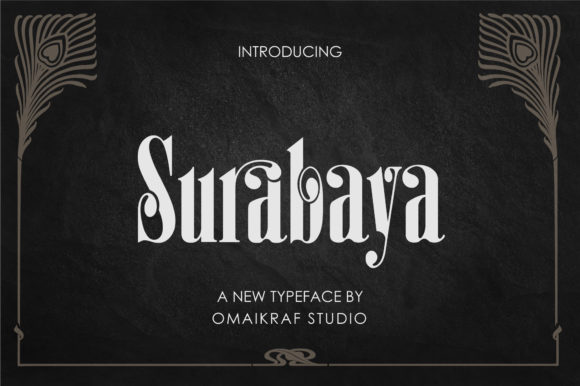
Unleash the boundless potential of Surabaya Font, the breathtaking display font crafted by the visionary omaikraf. Immerse yourself in a world of typographic elegance where creativity flourishes and imagination takes flight. Surabaya Font isn't just a font; it's an artistic masterpiece that transforms your designs into captivating visual expressions.
With its meticulously crafted curves and striking presence, Surabaya Font commands attention effortlessly. Each letterform is a work of art, meticulously designed to evoke emotions and convey messages with unparalleled clarity and sophistication. Whether you're crafting logos, branding materials, or captivating social media graphics, Surabaya Font is the ultimate tool to make an unforgettable impact.
Step into a realm of limitless possibilities with Surabaya Font and watch as your creative visions come to life. Its versatility extends far beyond the confines of traditional design, inviting you to explore new horizons of artistic expression. Dive into the world of app design, web development, or even Android Studio projects, knowing that Surabaya Font will elevate every element with its undeniable charm.
As a font meticulously designed for Android Studio, Surabaya Font is your gateway to creating apps that captivate and engage users from the very first glance. Its crisp, clean lines render beautifully on digital screens, ensuring that your app's interface exudes professionalism and sophistication. From user interfaces to marketing materials, Surabaya Font empowers you to craft a cohesive and visually stunning app experience that leaves a lasting impression.
Surabaya Font is more than just a collection of letters; it's an invitation to embark on a creative journey where boundaries dissolve, and imagination reigns supreme. Let your designs soar to new heights, capture hearts, and make a statement that resonates with your audience. Embrace the artistry of Surabaya Font and unlock the true power of visual communication.